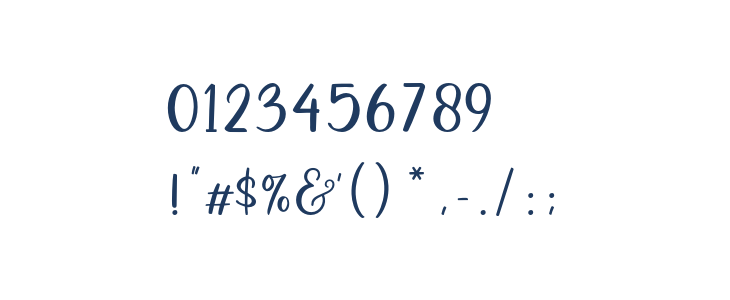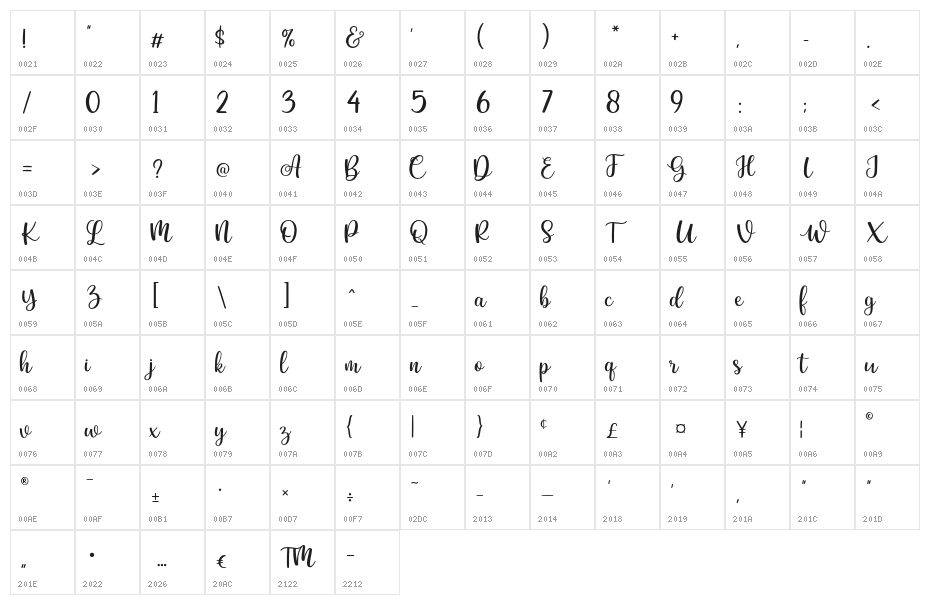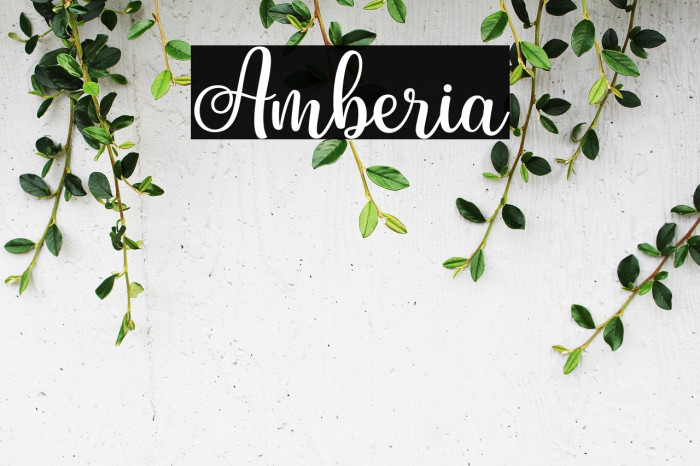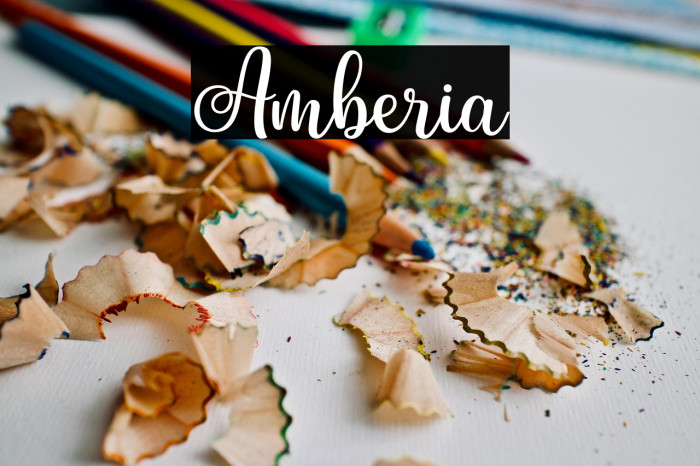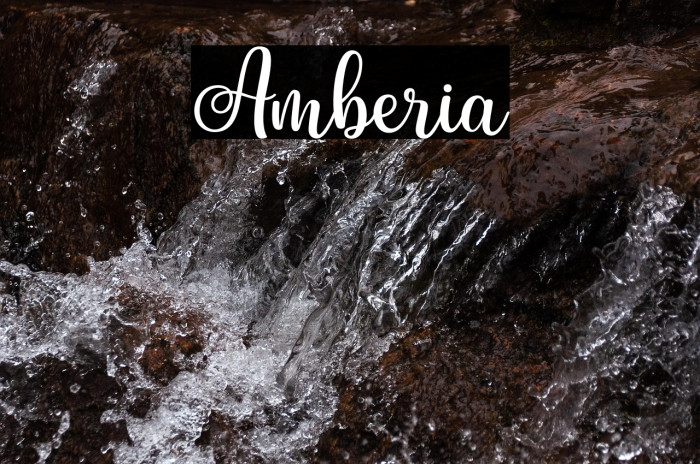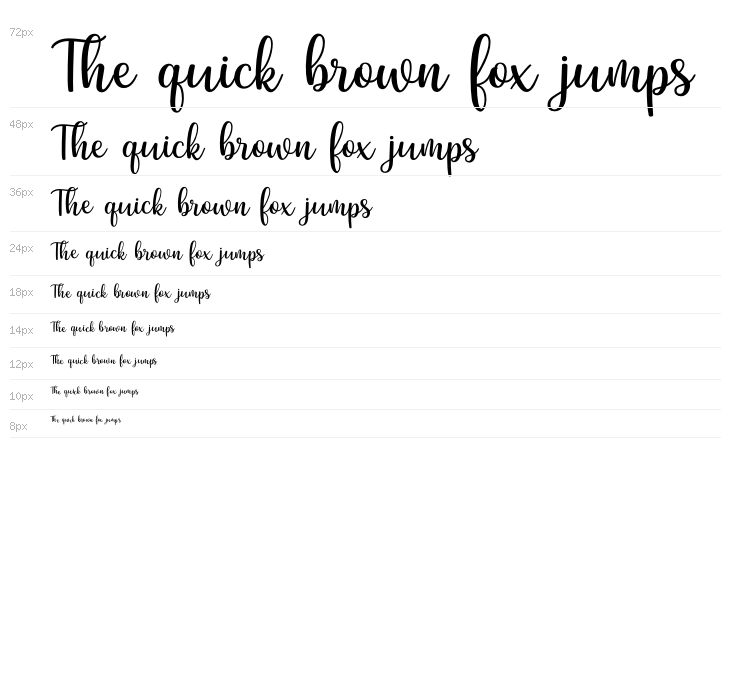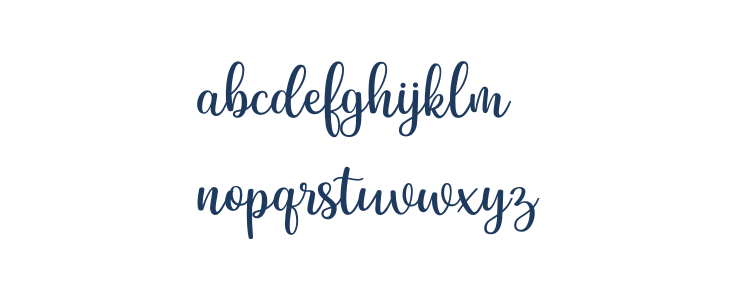
Amberia Font
Amberia Description
This font features a flowing, cursive style with elegant loops and swashes, giving it a sophisticated and artistic appearance. The uppercase letters are bold and ornate, while the lowercase letters maintain a consistent, smooth flow. Numbers and special characters are designed to match the overall aesthetic, with a playful yet refined look. The font's design is reminiscent of traditional calligraphy, making it suitable for projects that require a touch of elegance and creativity.
| Use Case | Logos, Invitations, Decorative text |
| Proposed Projects | Ideal for wedding invitations, greeting cards, branding, and logo design. |